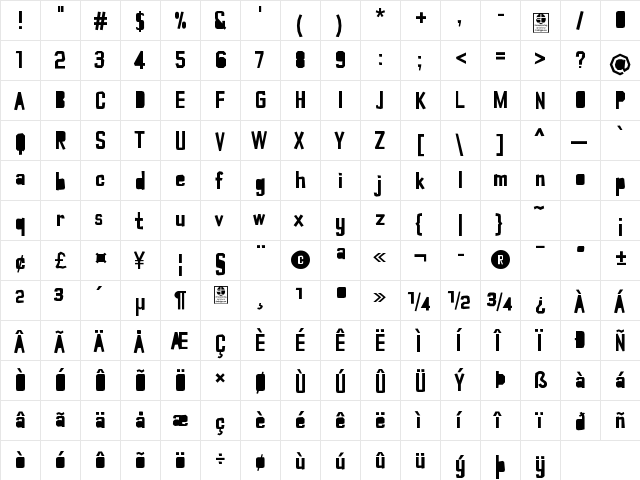
Typo Cut-Out Closed Demo Regular
| Foundry | StudioTypo |
| Designer | Mehmet Abac |
Design Context for Typo Cut-Out Closed Demo Typeface
Typo Cut-Out Closed Demo offers clean, dependable letterforms without strong stylistic allegiance, making it a practical choice for designers who need flexibility.